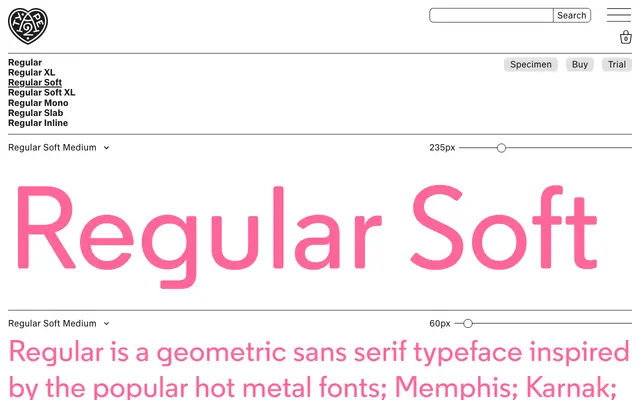
Regular Soft specimen from A2-Type
A softened geometric sans companion to A2-Type's Regular family, drawing on Futura and hot-metal slab references with rounded forms tuned for both print and screen use.
Seven weights from Light to Black, each with a matching italic, give the family a thorough range for text and display work. The softened geometry is designed to read crisply at small sizes while retaining enough personality to hold interest at large ones. It sits within the broader Regular superfamily alongside Regular XL, Regular Mono, Regular Slab and Regular Inline.
Explicitly positioned within the modernist geometric tradition, citing Futura, Memphis, Karnak and Stymie as references; rounded terminals and softened geometry distinguish it from a strict geometric sans.